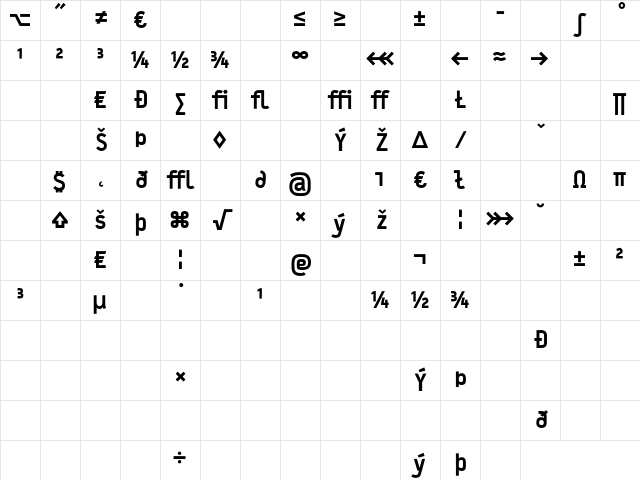
Typestar BlackExpert
Design Context for Typestar
Typestar is a composed and adaptable typeface that performs quietly and consistently across a wide range of design contexts.